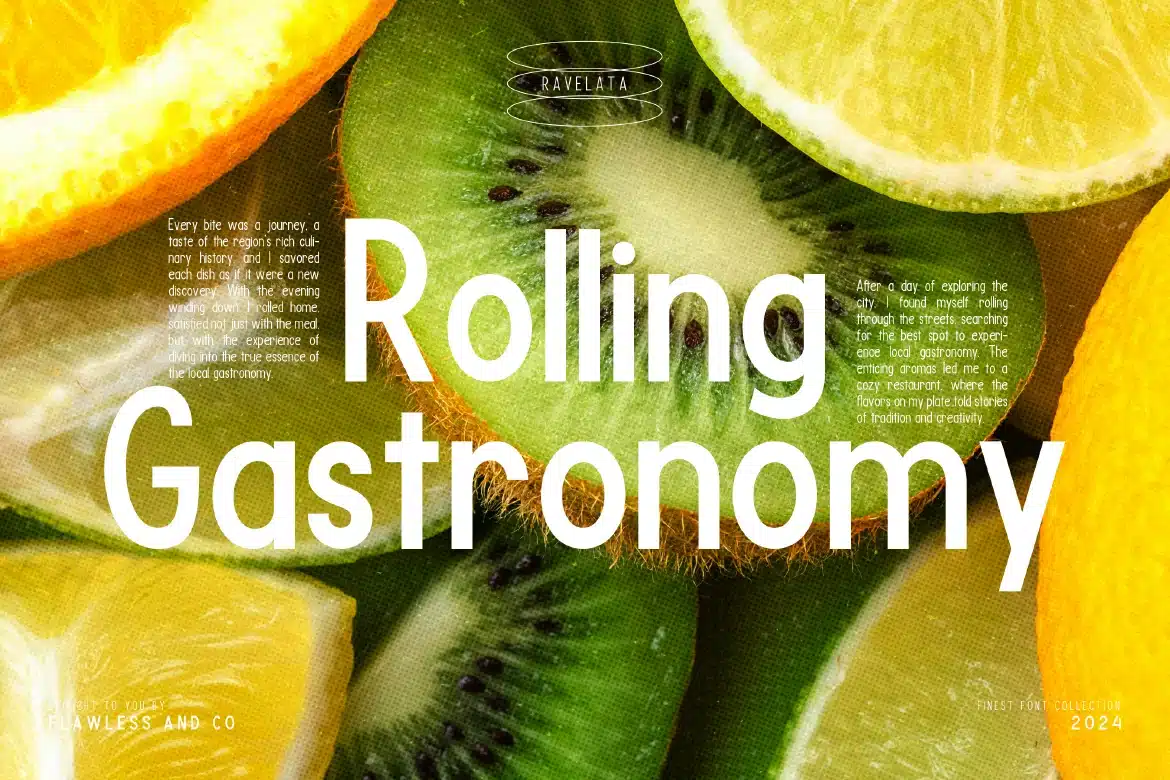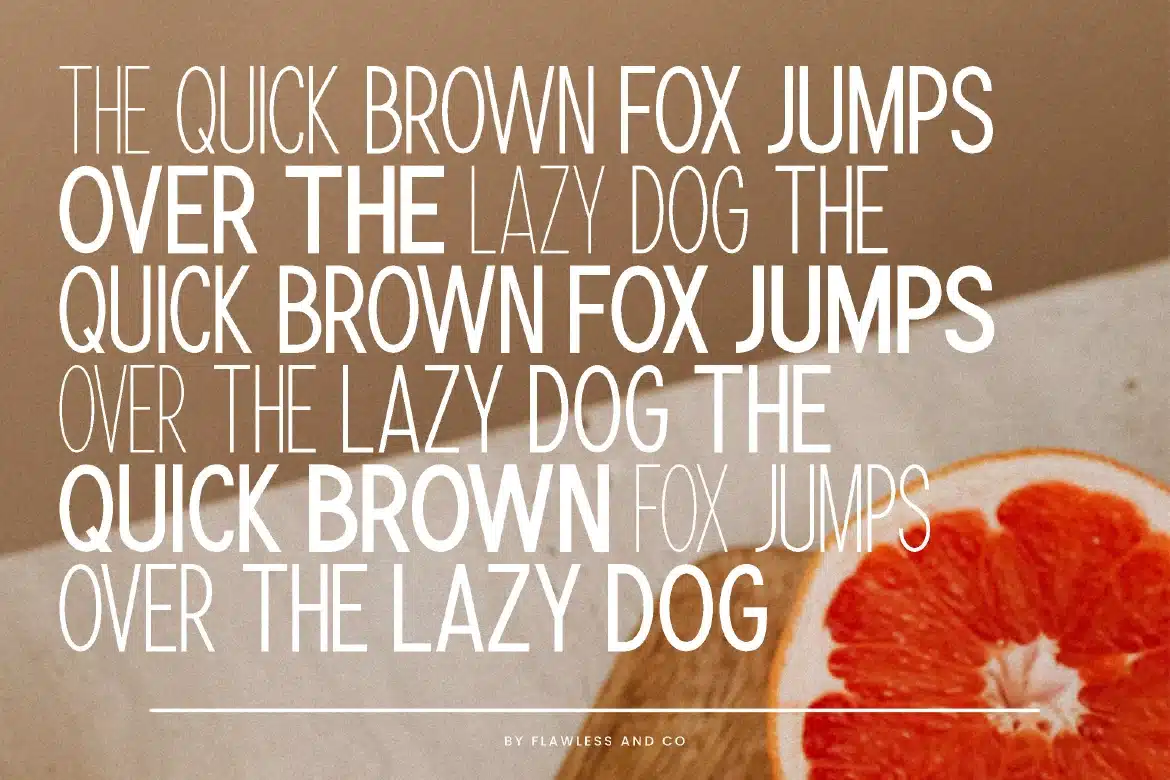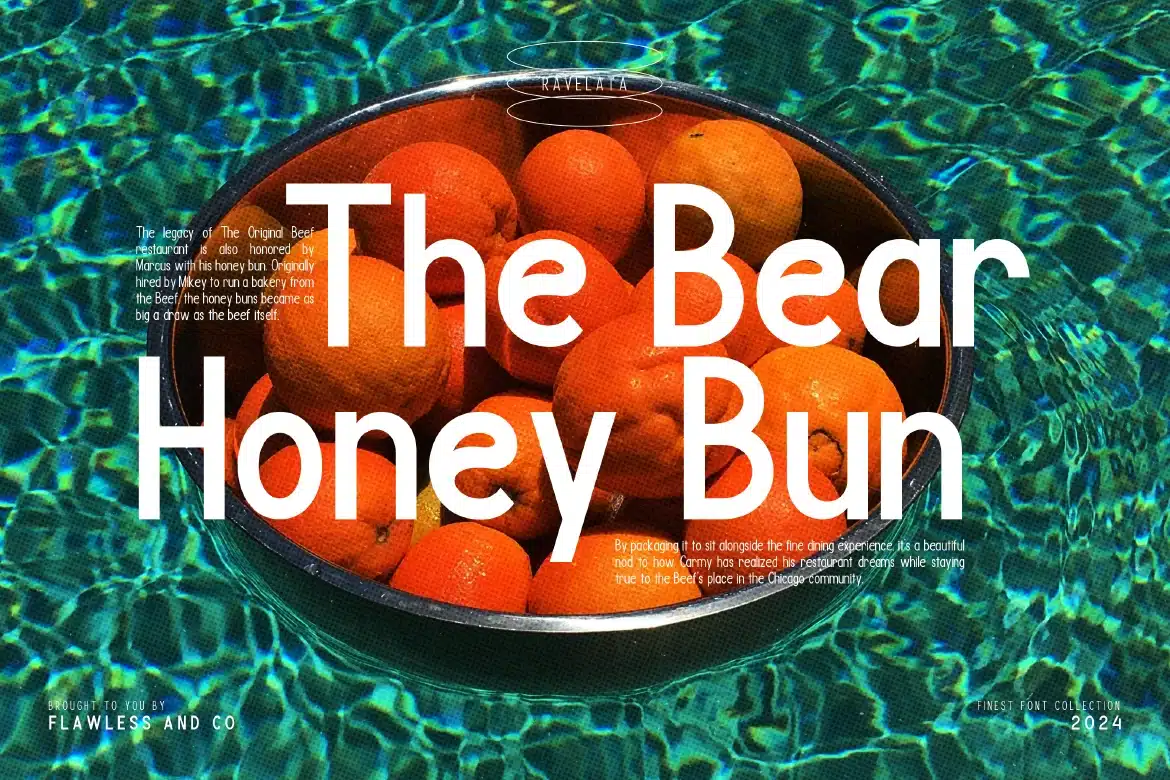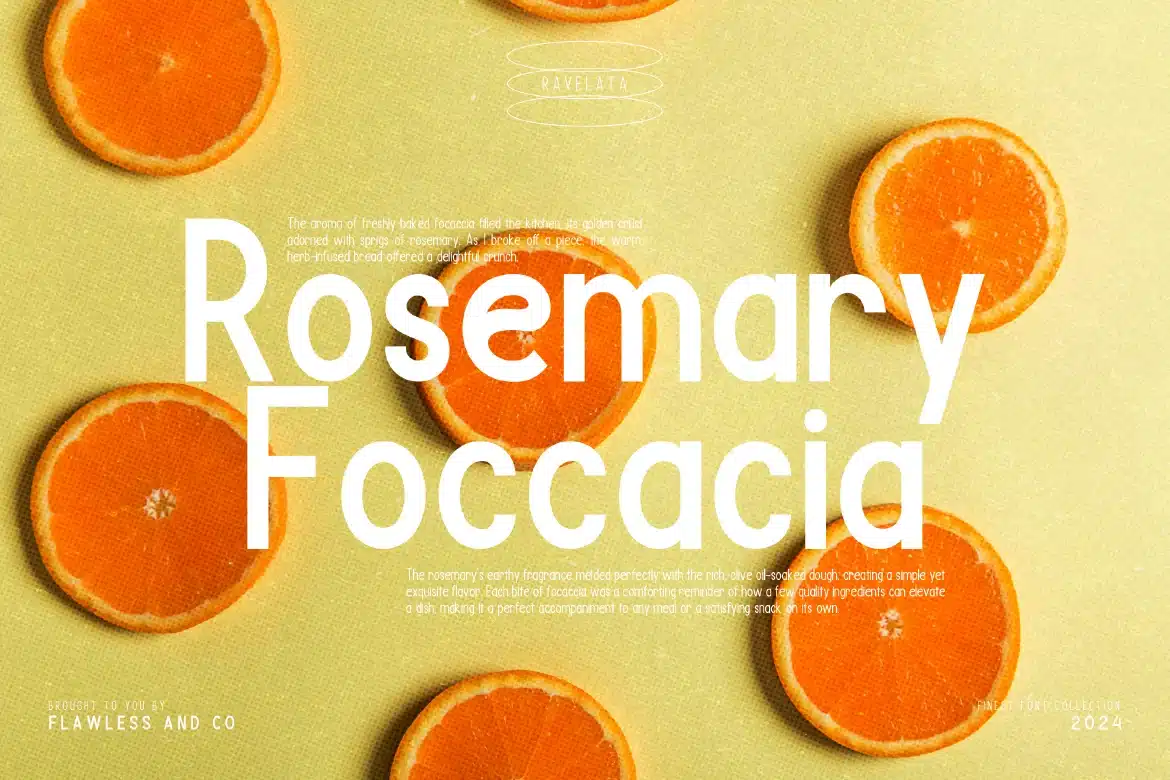
Revaleta – Sans Serif Font Family
Introducing Revaleta, a sans serif font family that exudes sophistication and style. With its clean lines, geometric shapes, and subtle stroke variations, Revaleta is perfect for creating a modern and refined look for your branding, web design, and editorial projects. Revaleta consists of various weights ranging from thin to bold styles, including thin, extra light, light, regular, medium, semi-bold, and bold.